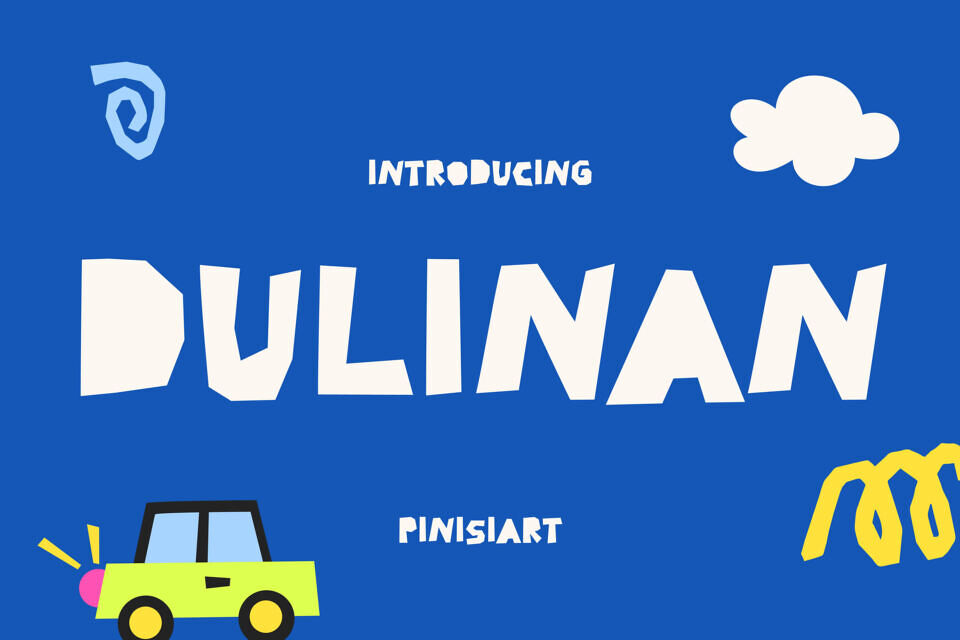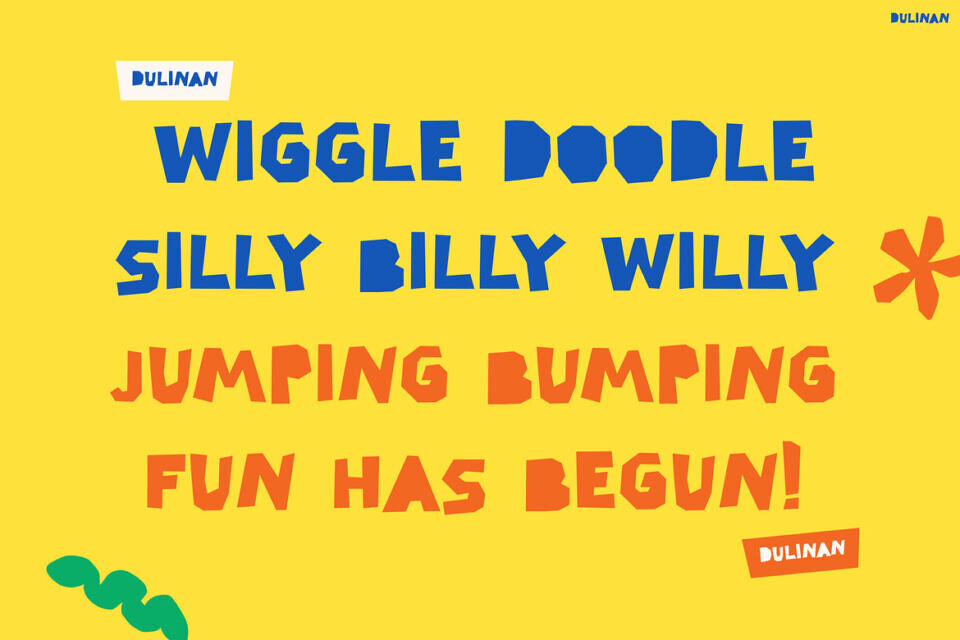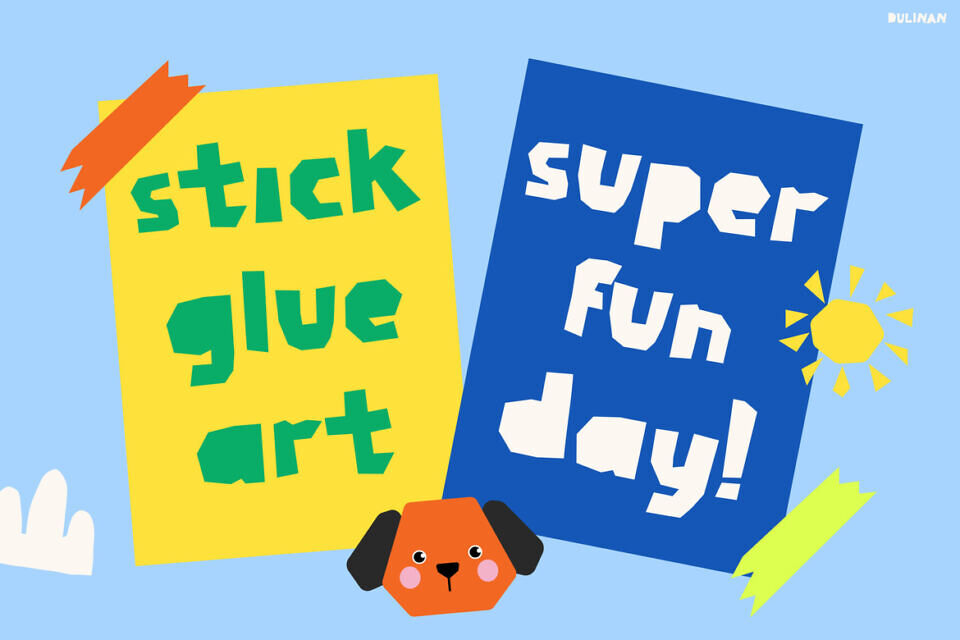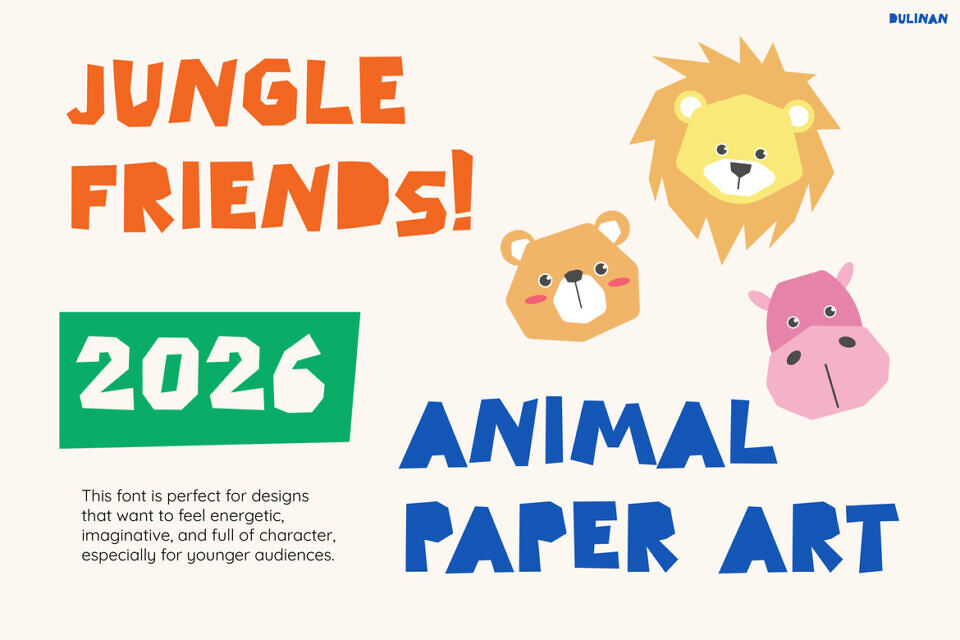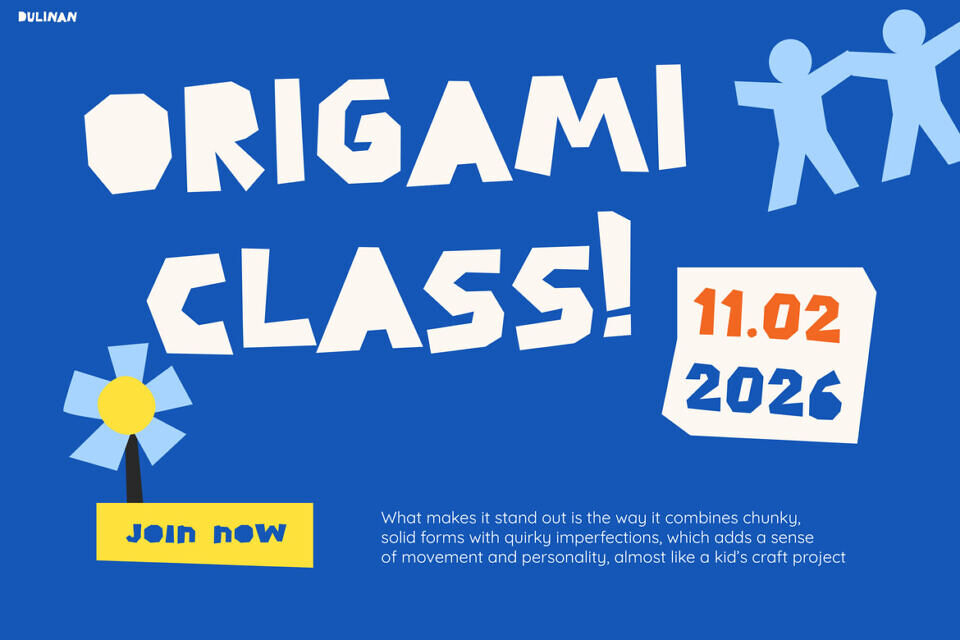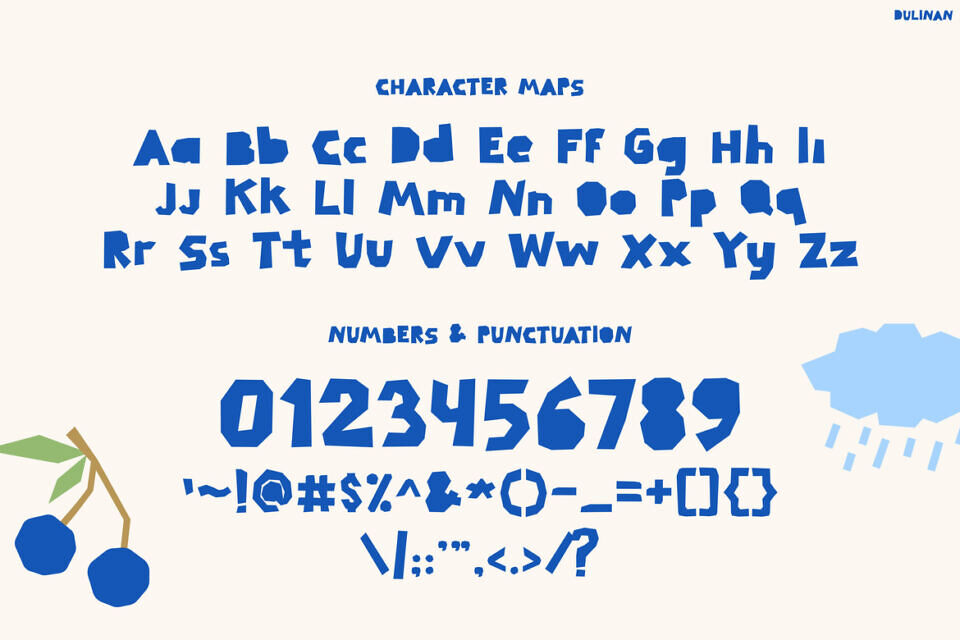
Dulinan is a cheerful, hand-drawn display typeface that instantly brings fun, creativity, and warmth into any design. Not only does it feature irregular, bouncy letterforms, but it also creates a lively visual rhythm that feels natural and expressive.
Moreover, its bold shapes and playful structure make every word stand out effortlessly. Because of its charming imperfections and chunky style, this font delivers a unique aesthetic that feels both authentic and engaging. As a result, it becomes a perfect choice for designs that aim to capture attention while maintaining readability.